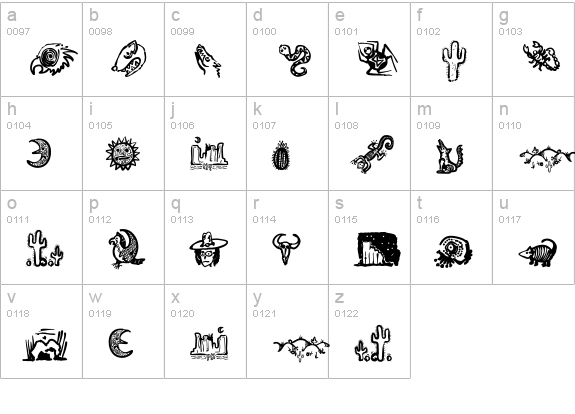
Introducing the captivating Death Valley Dingbats font - a unique and versatile typeface that adds a touch of whimsy and playfulness to any design project. This font features a collection of quirky dingbat characters that are perfect for creating eye-catching graphics, posters, invitations, and more. What sets Death Valley Dingbats font apart is its ability to inject personality and charm into your designs effortlessly. Whether you're looking to add a fun element to a birthday card or create a standout logo, this font has got you covered. With its playful and stylish characters, Death Valley Dingbats font is sure to make your designs pop. And the best part? Death Valley Dingbats font is completely free to download at FontsMarket.com. Yes, you read that right - this amazing font is available for you to use in your projects without any cost. So why wait? Head over to FontsMarket.com now and unleash your creativity with Death Valley Dingbats font!